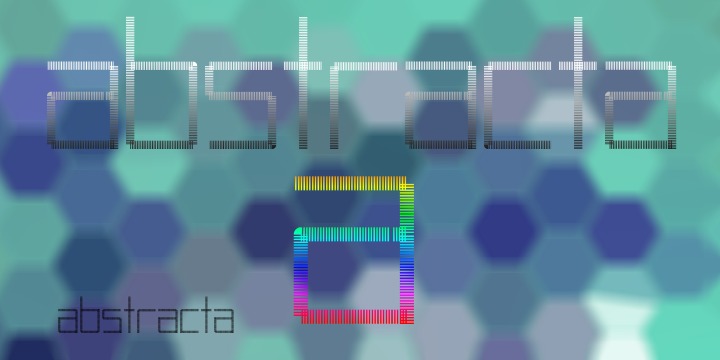
• Abstracta
This typography shows a variable point in a side view. The thin lines disappear when you make it smaller, transforming the structure of the letter in a solid object is a kind of metaphor for how it is viewed by the world in a contemporary vision. Its rigid structure make it suitable for modern billboards, and also to sites related to technology.